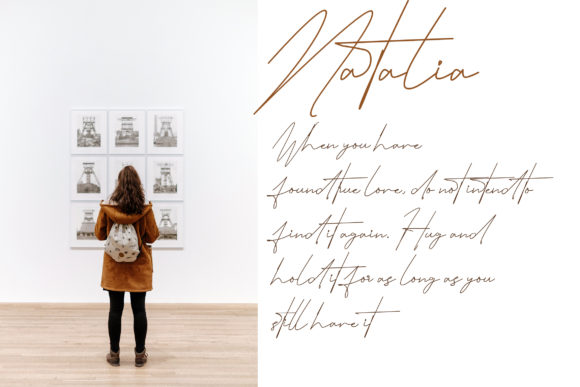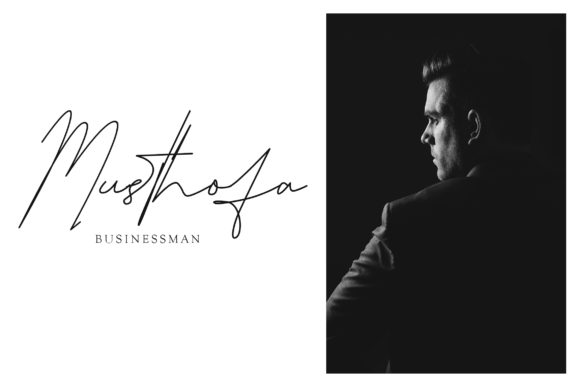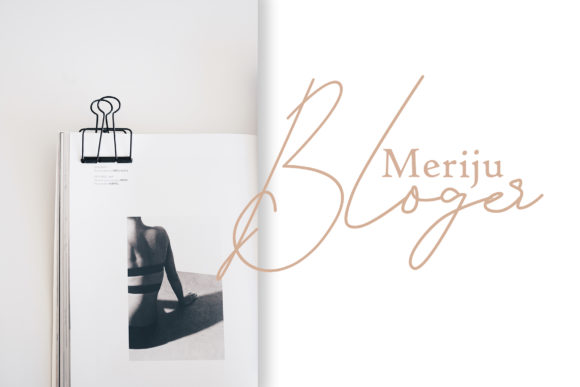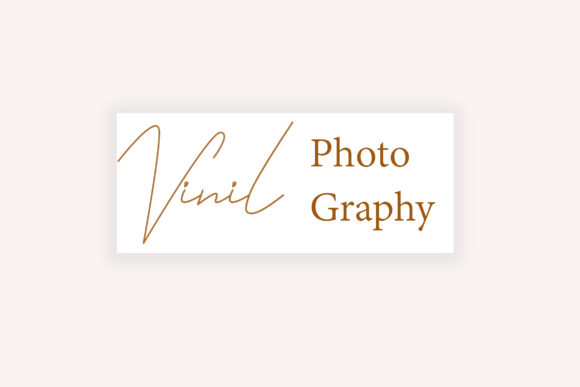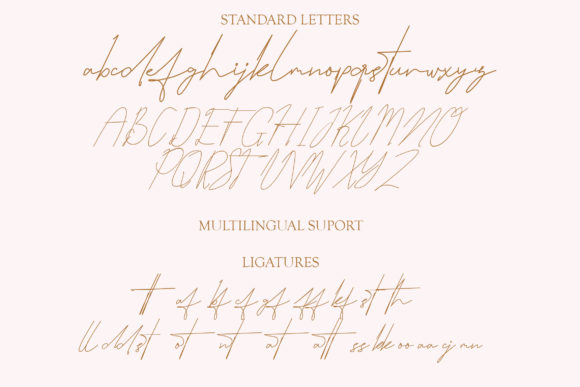
Introduction to Hamidal Font
Hamidal is a unicorn amongst fonts: Beautiful, and truly unique.
Use it to add a bold spark to any design idea .
Key Features of Hamidal Font
Why Choose Hamidal Font?
Hamidal Font offers exceptional quality and versatility, making it a valuable addition to your design toolkit. Whether you’re creating for personal projects or commercial use, Hamidal Font delivers professional results.